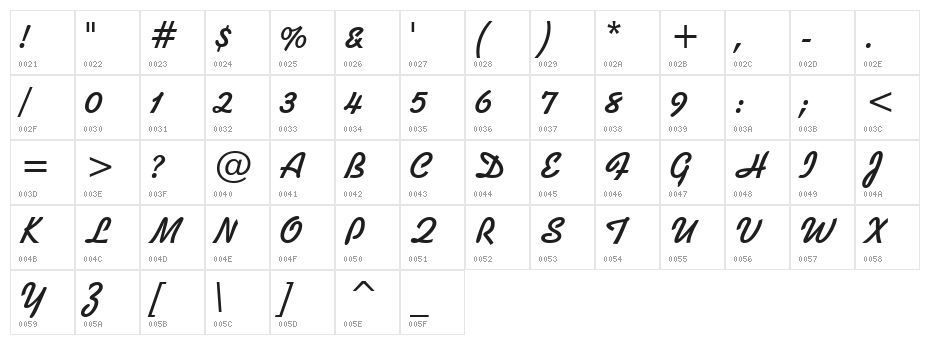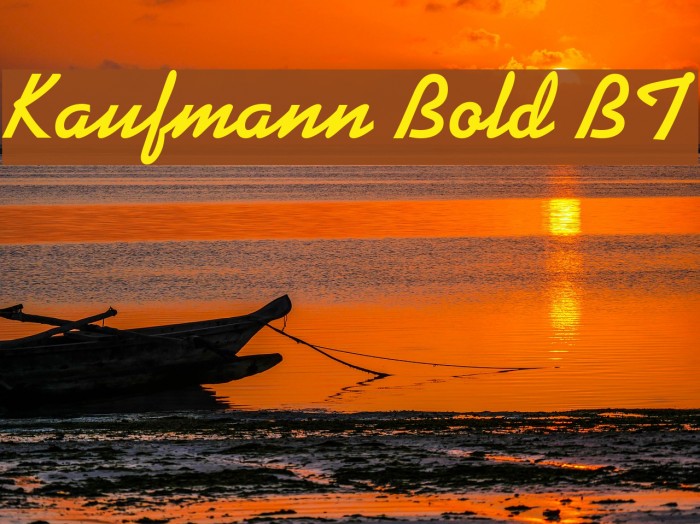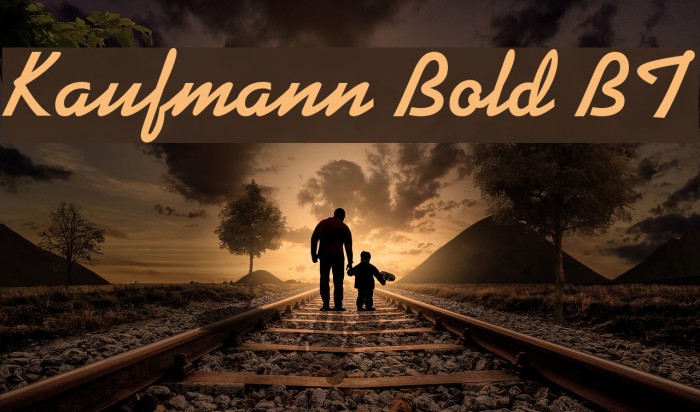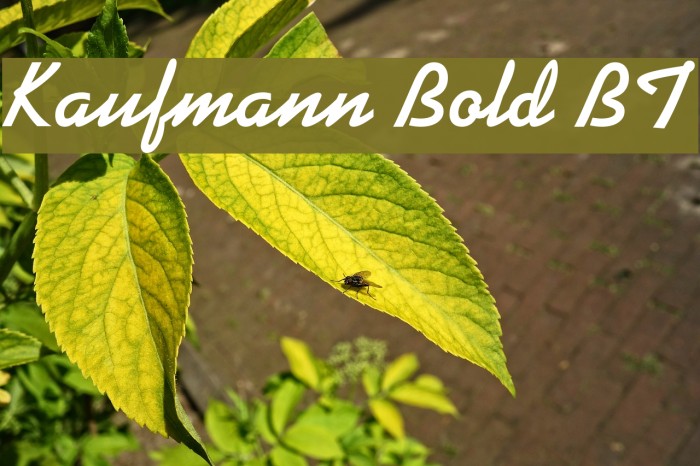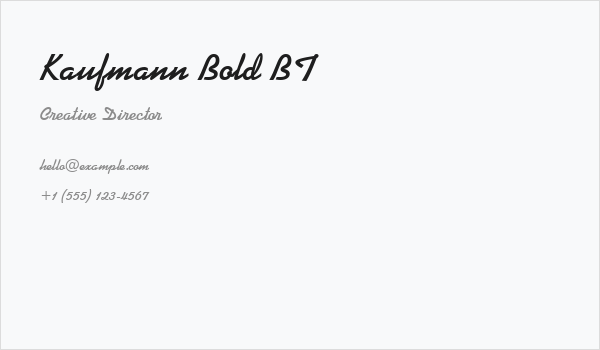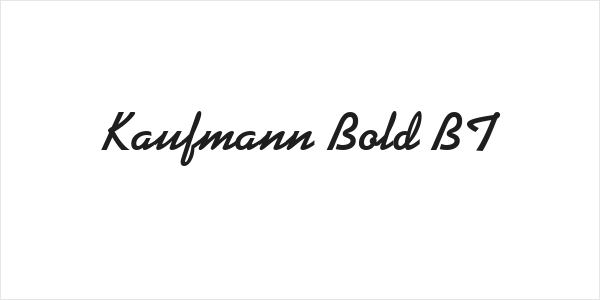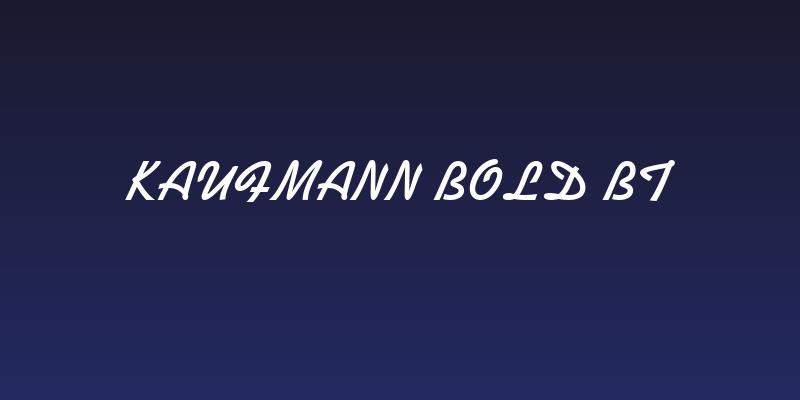
Kaufmann Bold BT Font
Kaufmann Bold BT Description
This font features a bold, flowing script style that exudes elegance and sophistication. The characters are connected, giving it a cursive appearance, with smooth curves and a consistent stroke weight. The uppercase letters are slightly more elaborate, while the lowercase letters maintain a more straightforward, yet stylish form. The numerals and special characters are designed to match the overall aesthetic, ensuring a cohesive look across all text. This font is ideal for projects that require a touch of class and personality, such as invitations, branding, and decorative headlines.
| Overall Style | Elegant, Decorative |
| Use Case | Headlines, Invitations, Branding |
| Proposed Projects | Ideal for wedding invitations, branding, decorative headlines, and elegant signage. |